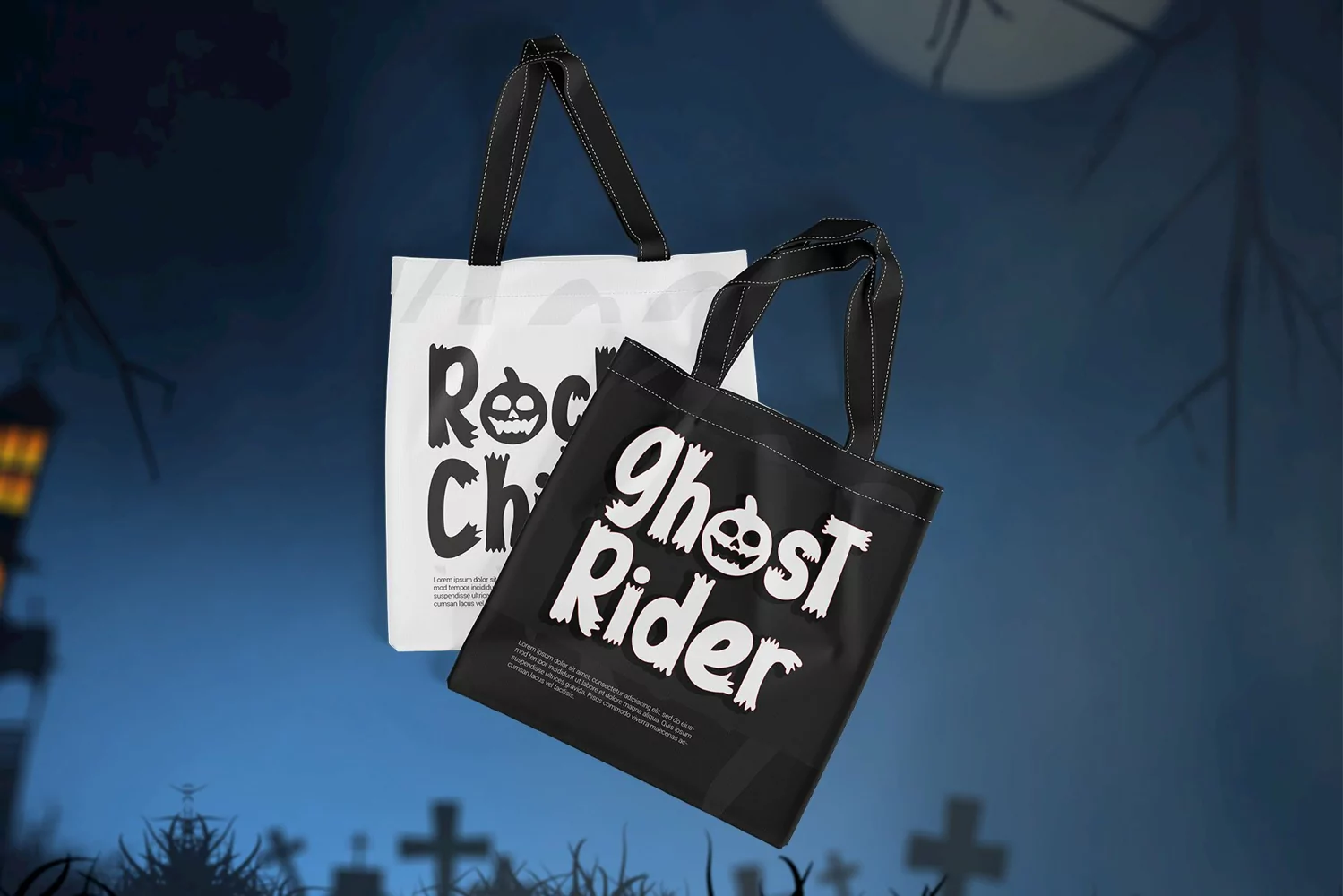
Spooky Hunter
Spooky Hunter is a Display font Halloween edition by Letterafa Studio. It will give your designs a unique and cool look. Spooky Hunter font is perfect; logos, greeting cards, a package design, a brand identity, craft design, any DIY project, book title, packaging, and more.